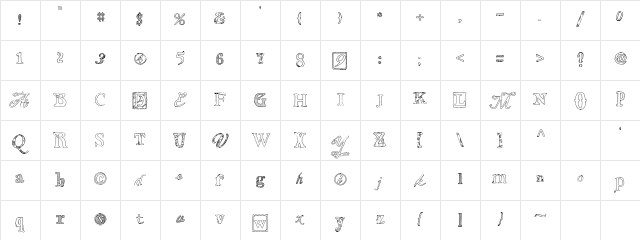
LDJ Moments in Time Regular
Design Context for LDJ Moments in Time
LDJ Moments in Time is a composed and adaptable typeface that performs quietly and consistently across a wide range of design contexts.